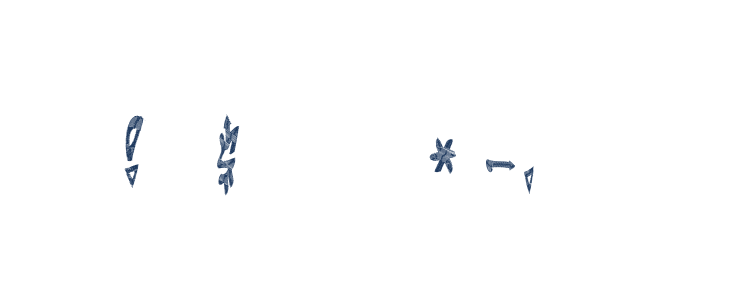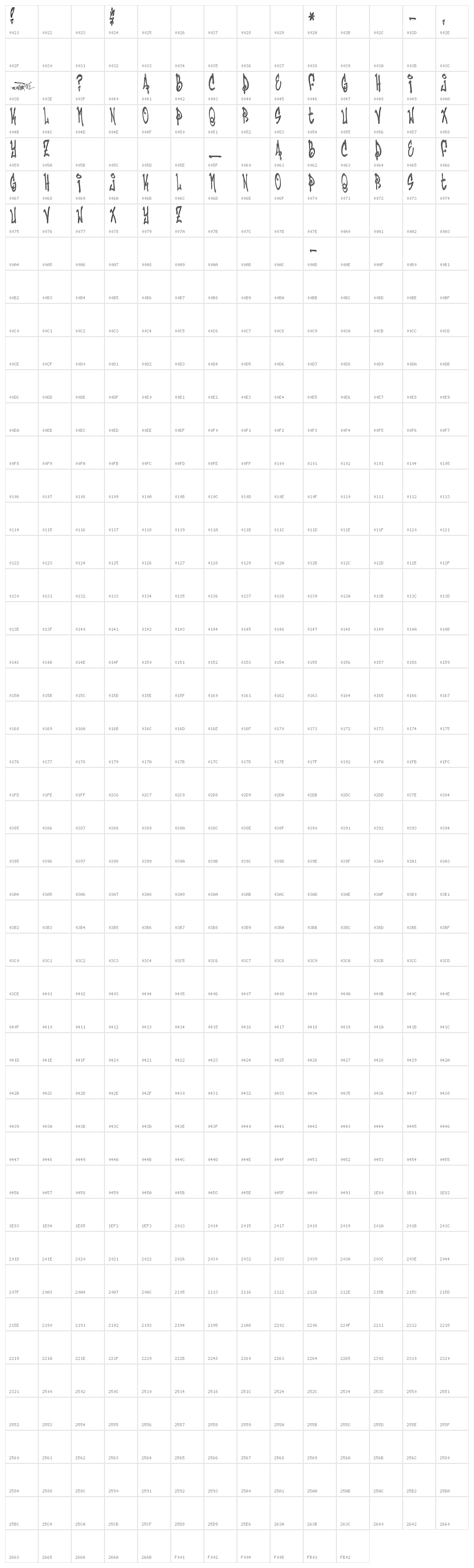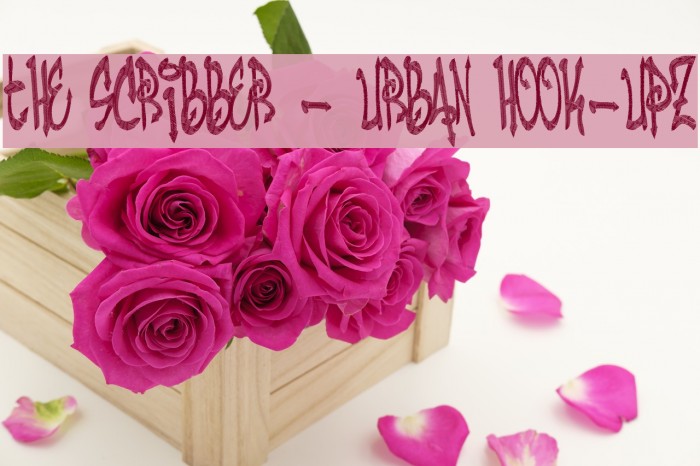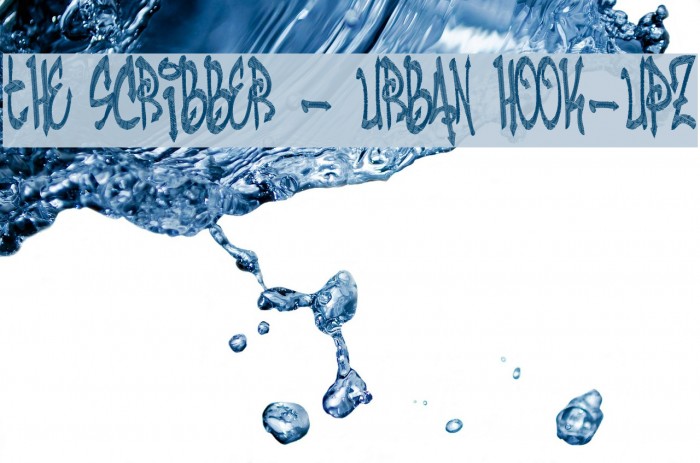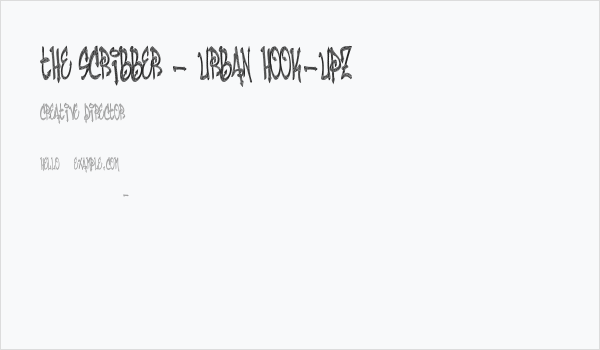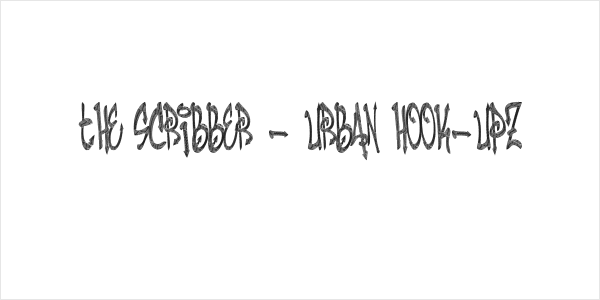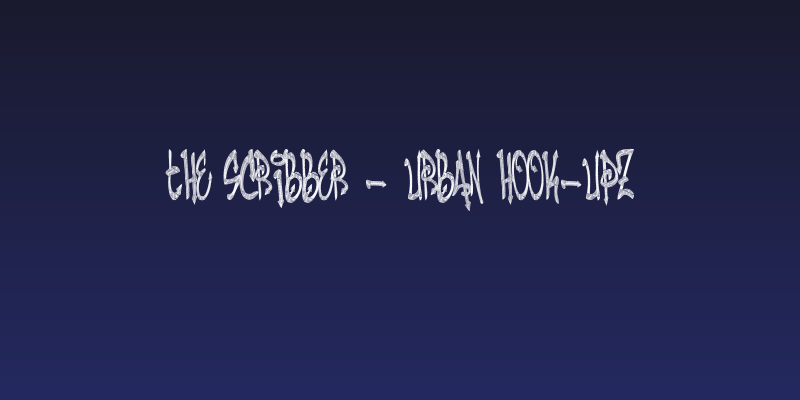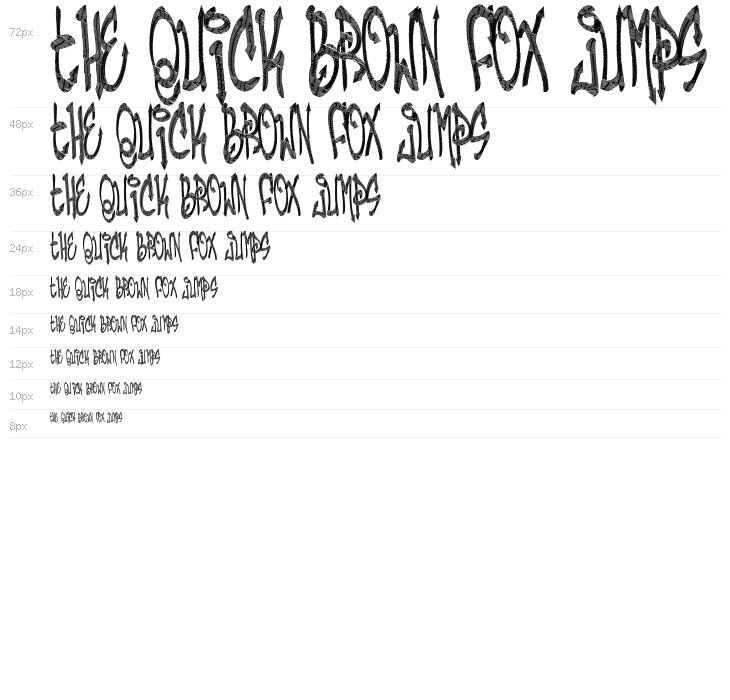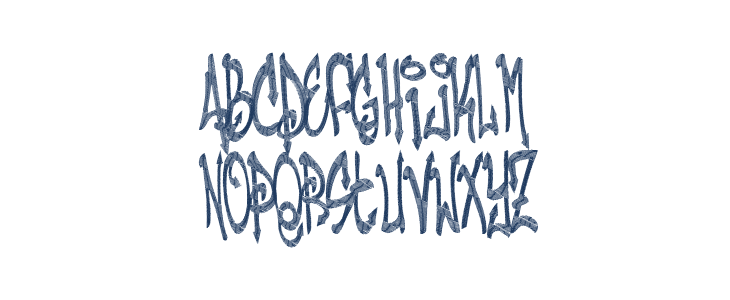
THE SCRIBBER - URBAN HOOK-UPZ Font
THE SCRIBBER - URBAN HOOK-UPZ Description
This font features a bold, graffiti-inspired style with a dynamic and energetic appearance. The letters are characterized by their thick strokes and playful, urban aesthetic, reminiscent of street art. Each character is uniquely crafted with a hand-drawn feel, incorporating elements of spontaneity and creativity. The uppercase and lowercase letters maintain a consistent style, with exaggerated curves and angles that add to the font's expressive nature. The numbers and special characters follow the same artistic theme, making the font suitable for projects that require a bold and unconventional look.
| Overall Style | Urban, Graffiti, Artistic |
| Proposed Projects | Ideal for street art designs, urban-themed posters, music album covers, and creative branding projects. |